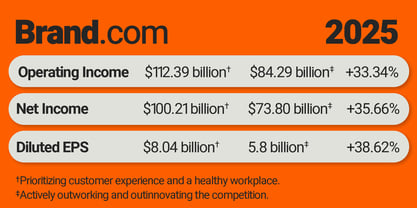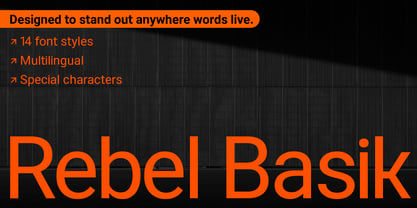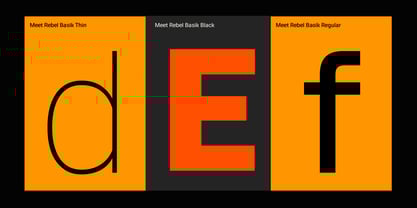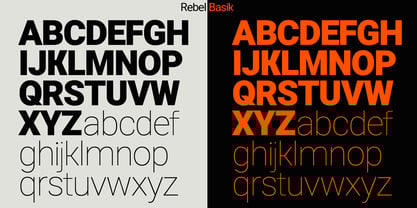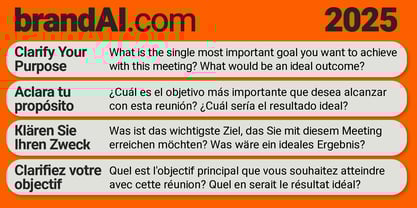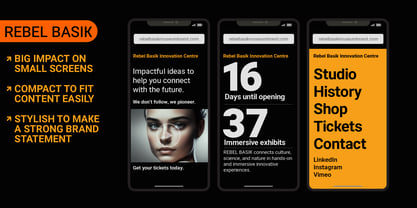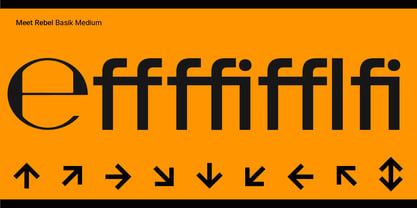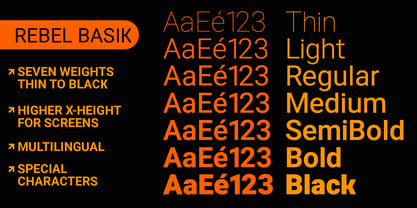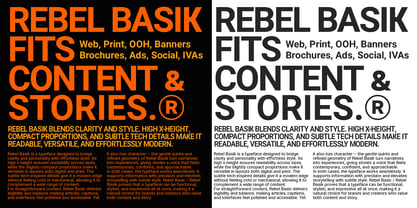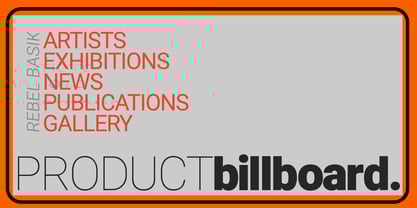
Rebel Basik
by Matt Chansky
Rebel Basik is a premium sans serif typeface designed for modern brands that thrive both online and offline. This versatile typeface performs seamlessly across various platforms, including websites, social media, banners, IVAs, print ads, and OOH campaigns, delivering clarity, efficiency, and a distinctive style. Combining Swiss inspired precision with subtle tech undertones, Rebel Basik strikes a perfect balance between structure and personality. Its space-efficient proportions ensure that it does not feel cramped, making it ideal for content-rich layouts and storytelling-driven designs. With a slightly taller x-height, Rebel Basik guarantees superior readability across all platforms and sizes, from mobile screens to billboards. The result is a typeface that feels crisp, approachable, and contemporary, while maintaining the polish essential for professional branding. Whether you’re crafting a corporate identity, designing a marketing campaign, or building a digital experience, Rebel Basik adapts effortlessly. It serves as a reliable, modern workhorse that infuses clarity and character into every project. Designed to shine online, in print, and everywhere in between.
Designers: Matt Chansky
Foundry: Matt Chansky
Digital-first font foundry, specializing in universal, high x-height fonts with a Swiss flavor. Allowing designers to literally and figuratively level up their creative with finely crafted and versatile font families. Typography is a visual art and when used in branding – it has the ability to speak to and shape an audience. That is the foundry's mission, to empower visual communicators with elite memorable fonts to help distinguish brands. When typography is the language used to craft a brand tone, speak to me in fonts. My love of typography inspired me to begin making fonts, but it’s a passion for visual design that sustains me. As a brand lead, I've received nearly 40 individual awards and accolades since 2009, appearing in several design books and magazines. I've worked with brand name clients across a wide variety of business segments. With two decades of experience on the global advertising scene, I know what is needed from a font or a logotype. Qualities like memorability, readability on small screens, clean lines, and ample glyph options are hallmarks of my font families. Long live design, long live typography.